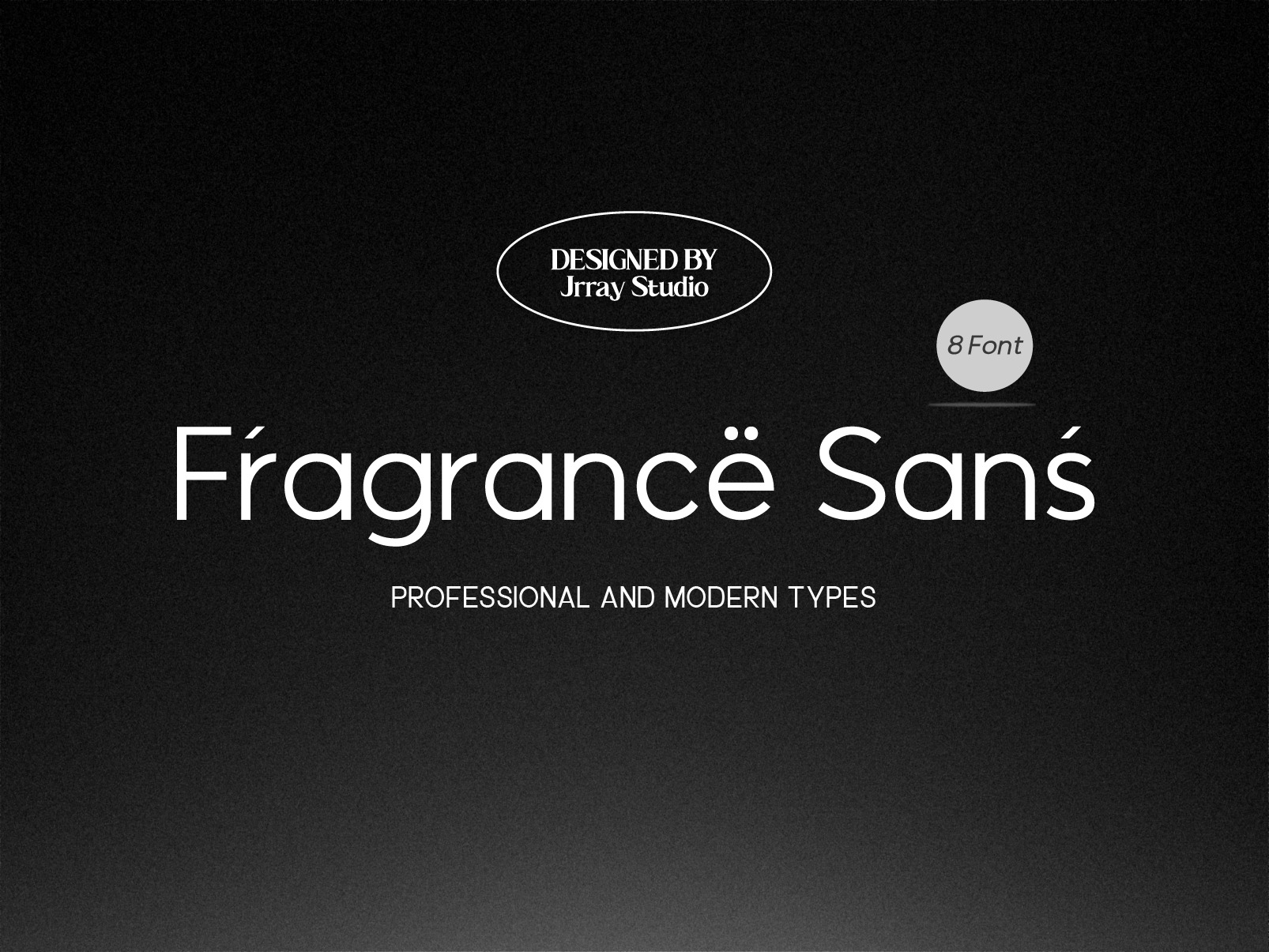
Fragrance Sans Font
Let me introducing our "Fragrance Sans" , a Professional and Modern Sans-Serif font. Fragrance is designed to be an easy go to for branding, web, print design projects and other.
Regular Weightbar Font (uppercase & lowecase, with 4 direffent regular and outline weight) Italic Weightbar Font (uppercase & lowecase, with 4 direffent regular and outline weight ) Numbers & punctuation